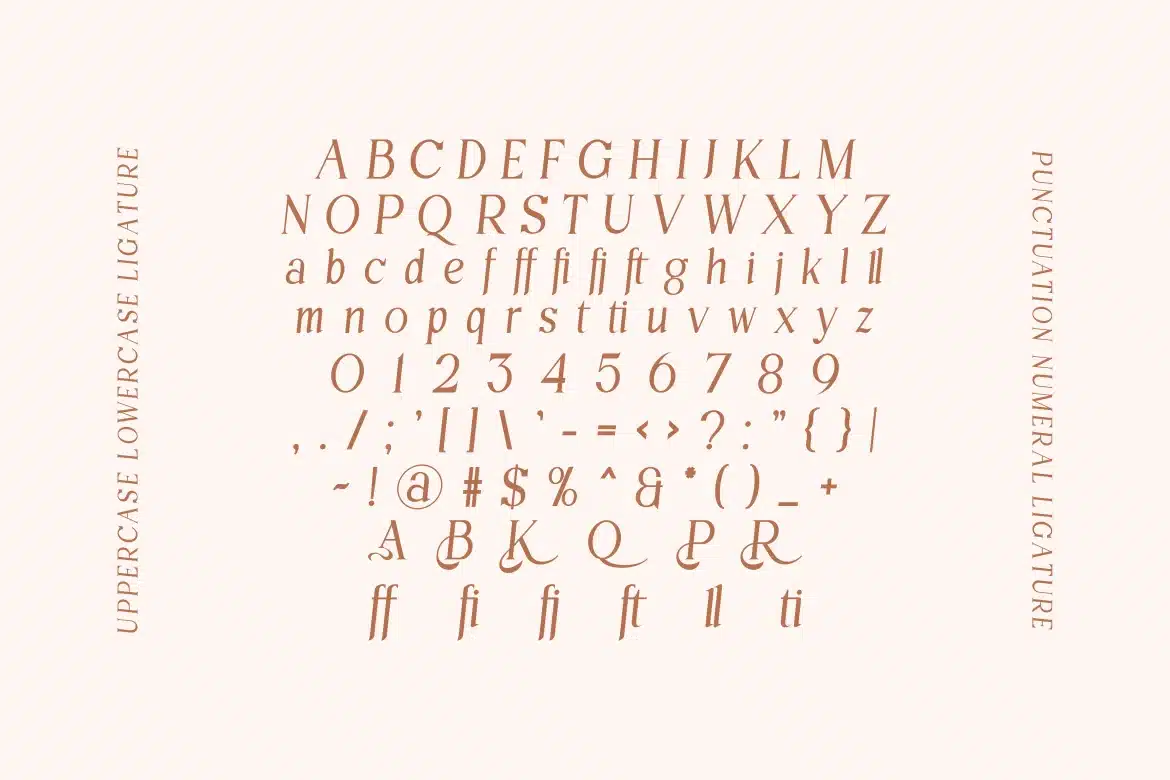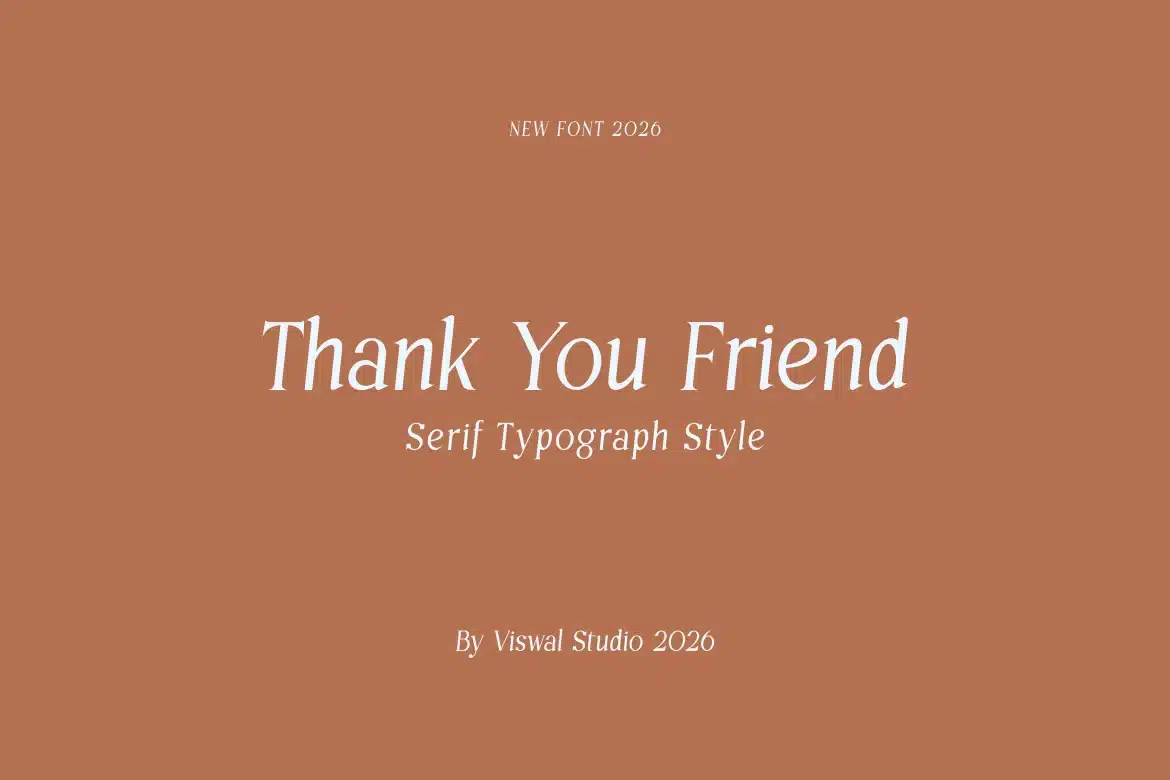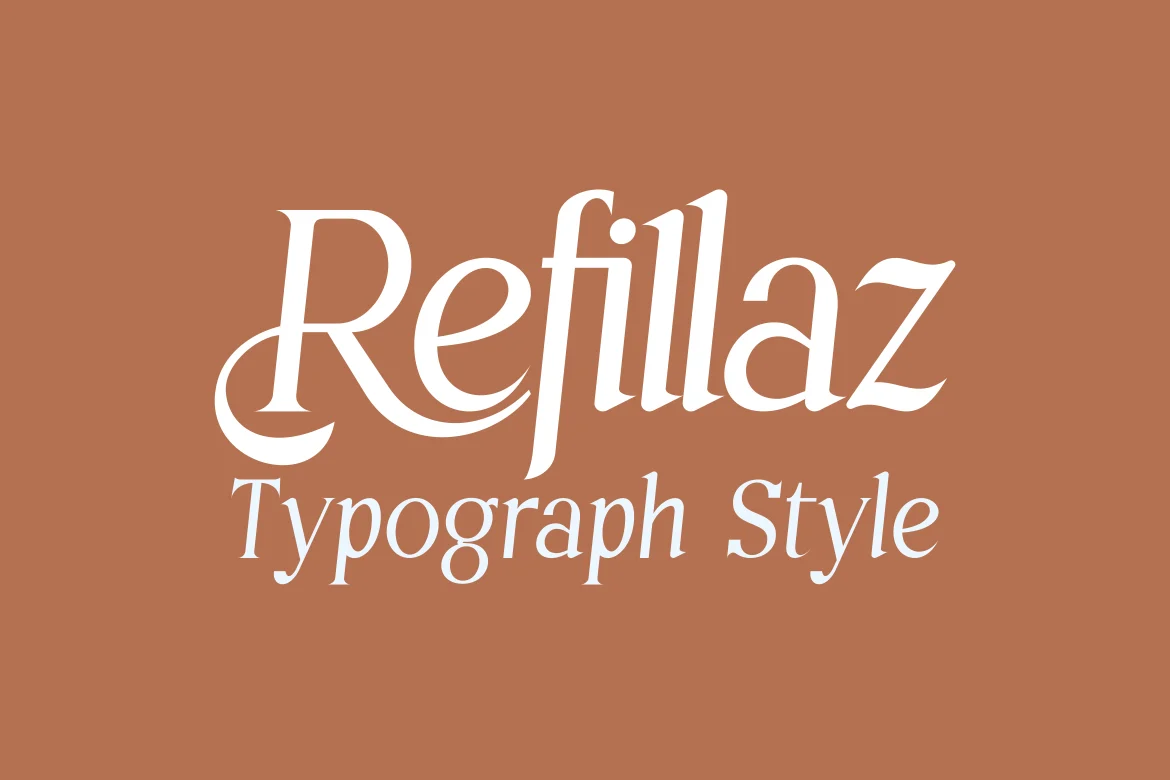
Refillaz – Modern Serif Font
Presenting Refillaz Is A Modern Serif Font.
Can Make It Easier To Convey The Message In Your Design. Font Is Suitable For Logo, Labels, Badge, Branding, Magazine, Poster, Title, Gigs, Covers And Etc. Our Fonts Have Uppercase & Lowercase, Numeral & Punctuation, And Opentype Features. For Amazing Designs You Can Mix With Other Fonts As A Complement.